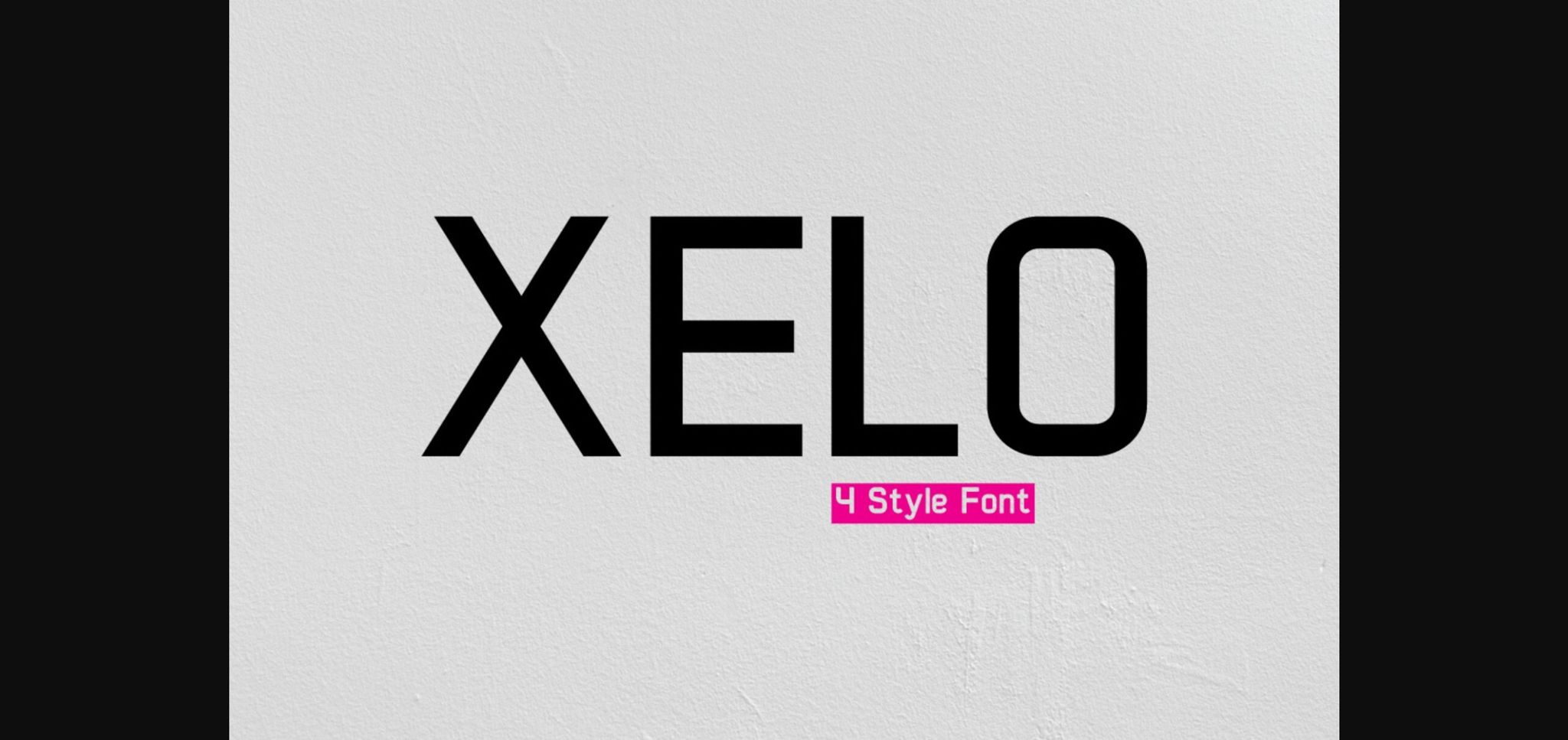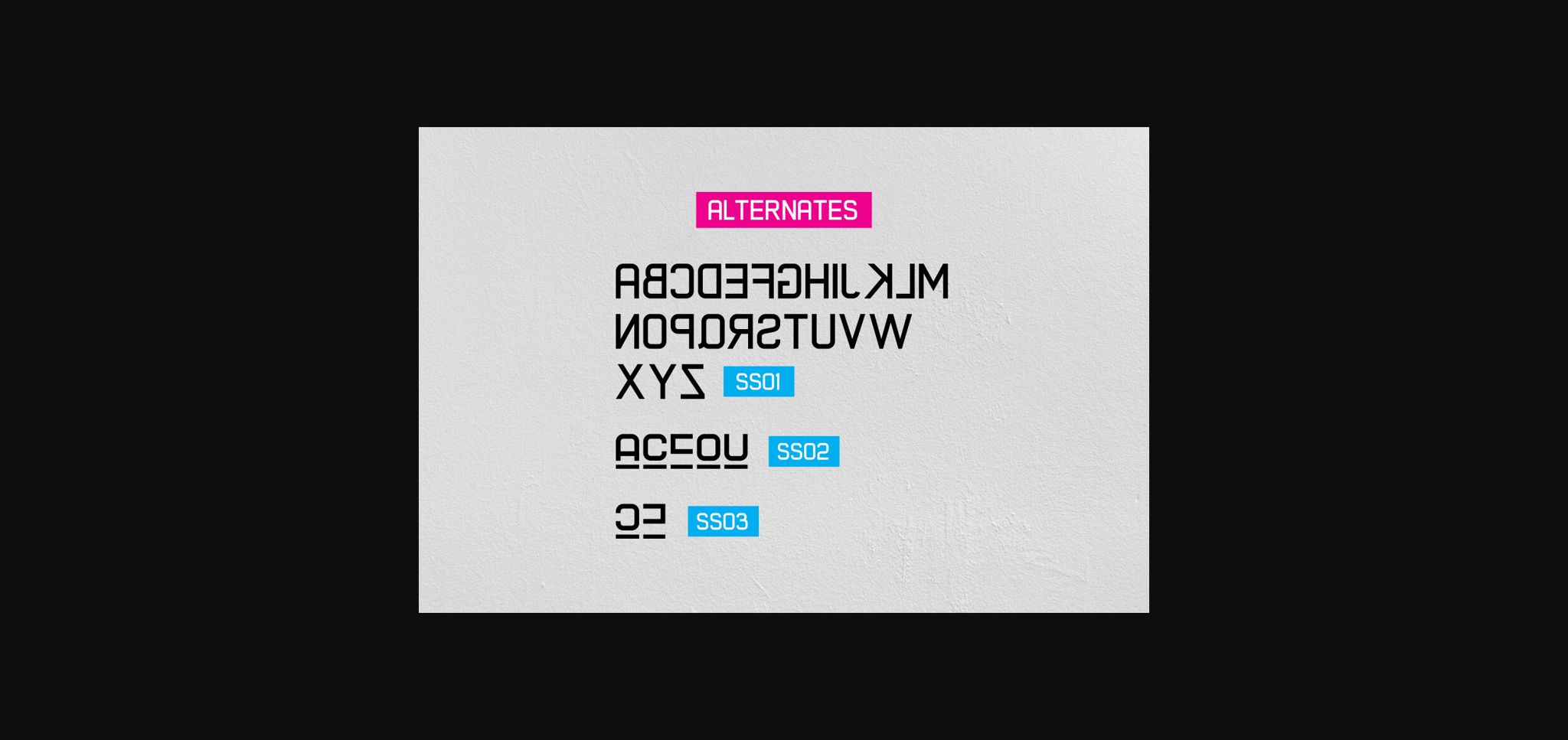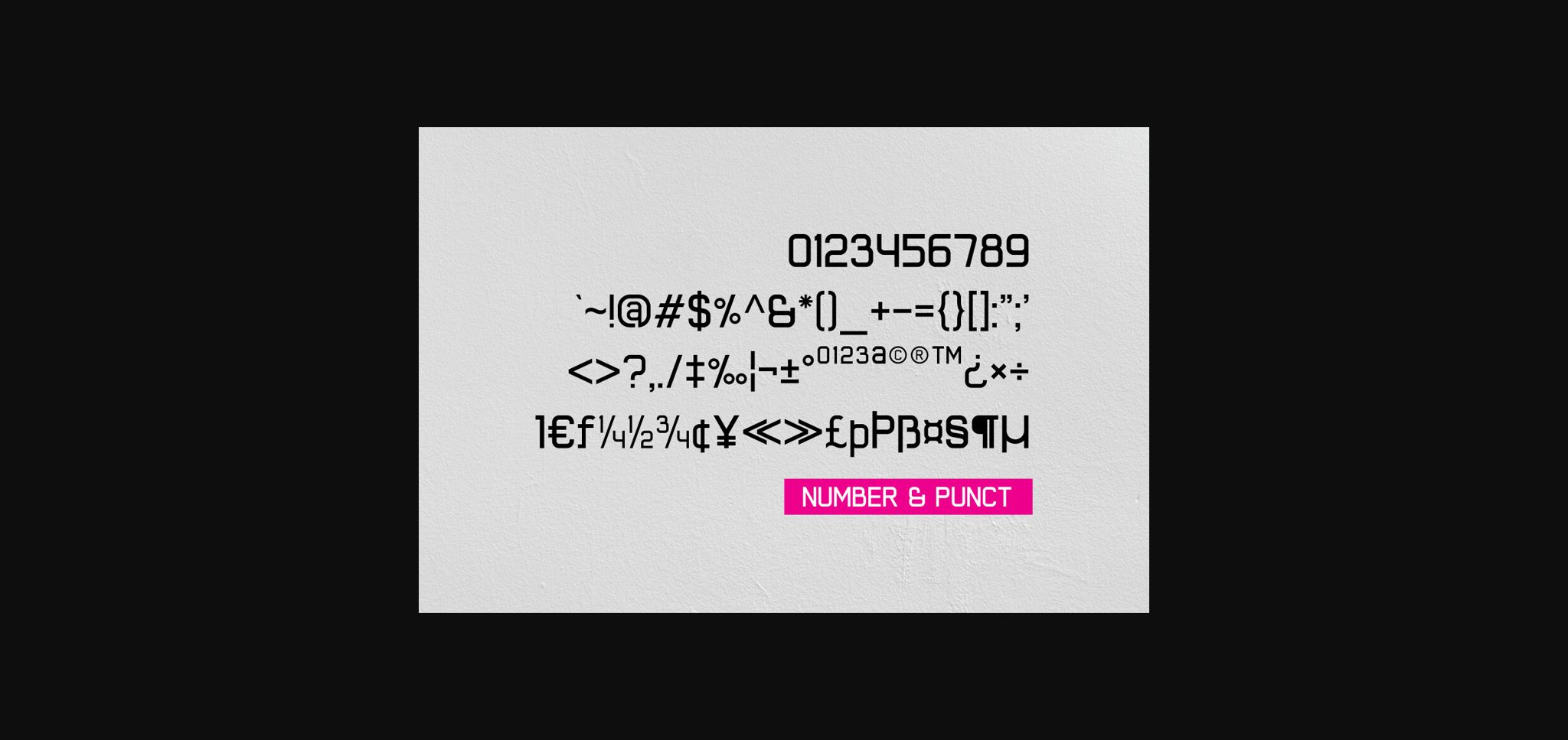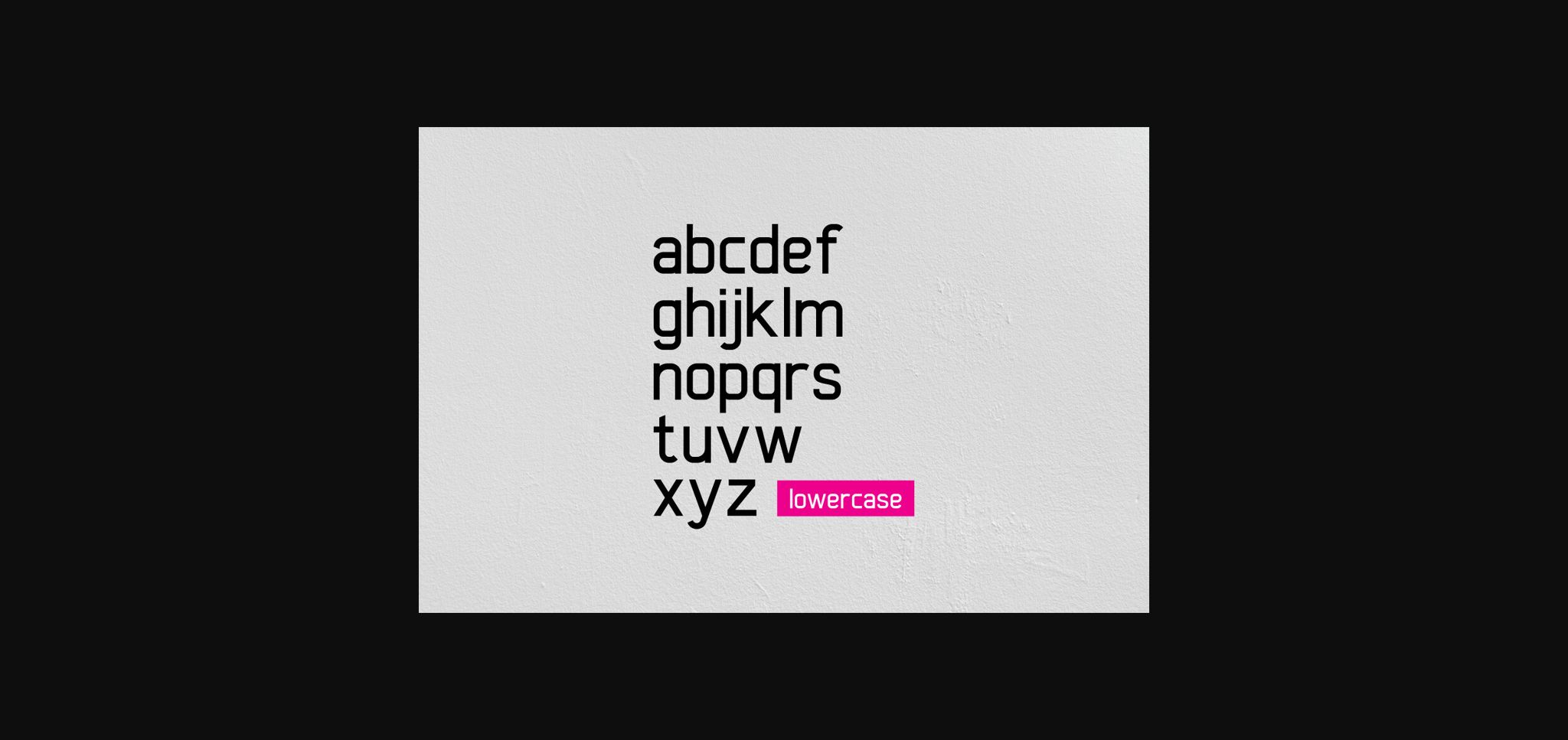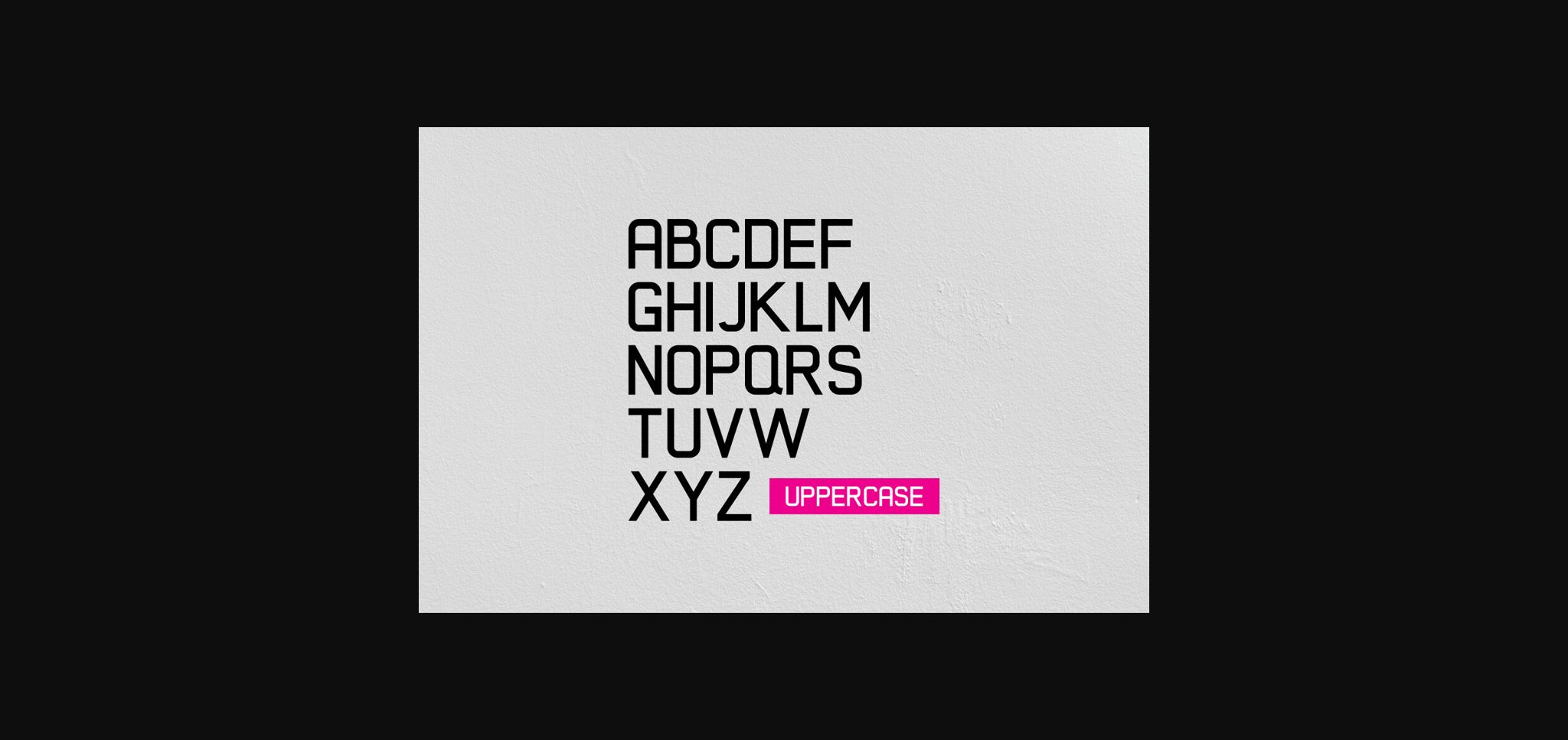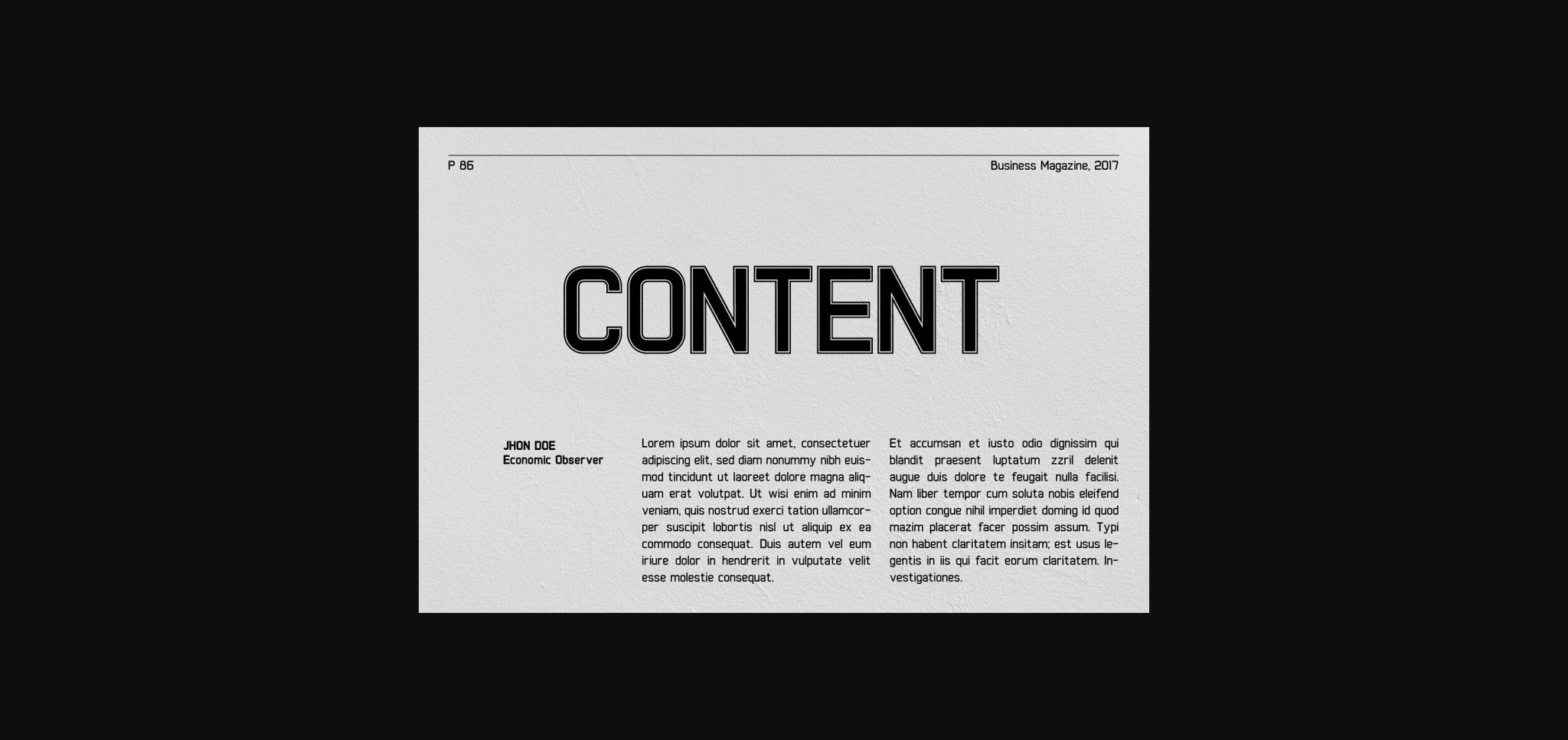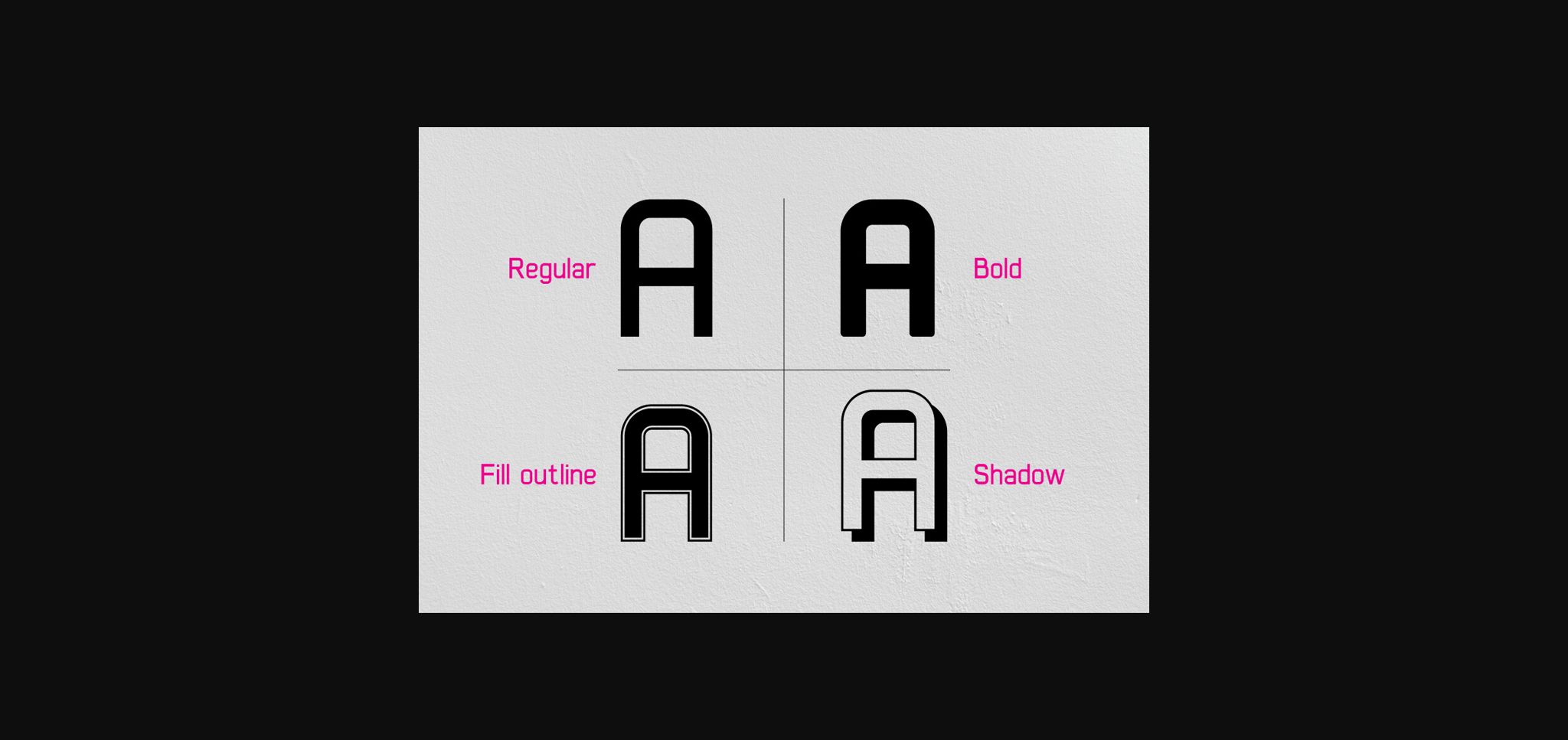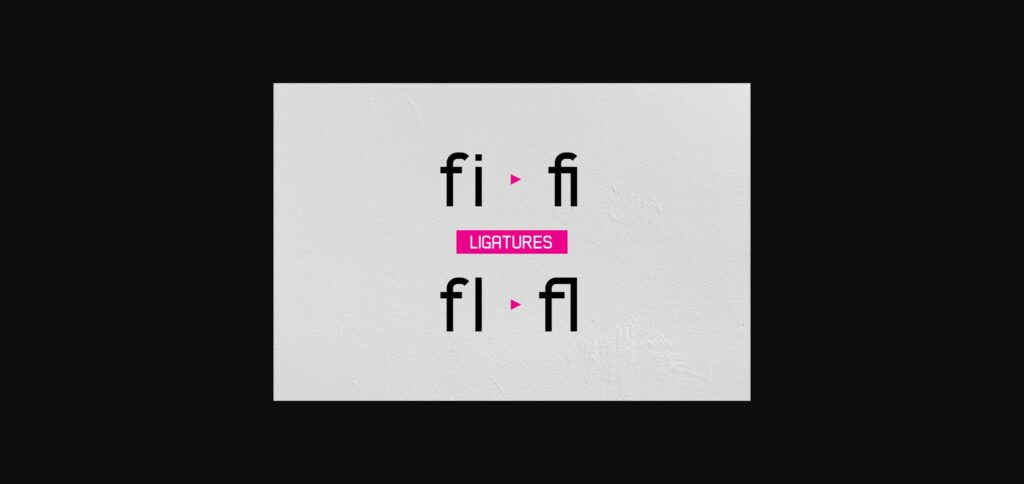
Xelo Font
About Xelo Font
Xelo is a modern squared sans serif font that is packed with features including a huge set of unique alternate characters, multilingual characters & plenty of ligatures.
The alternates make this font excellent for creating branding & logos that stand out from the crowd. Perfectly suited for new startups and emerging tech, Xelo is ready to make your next project pop.